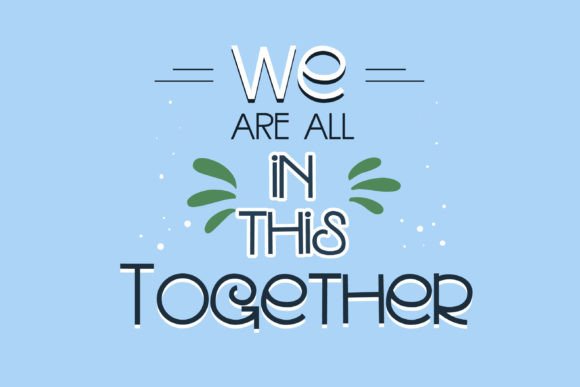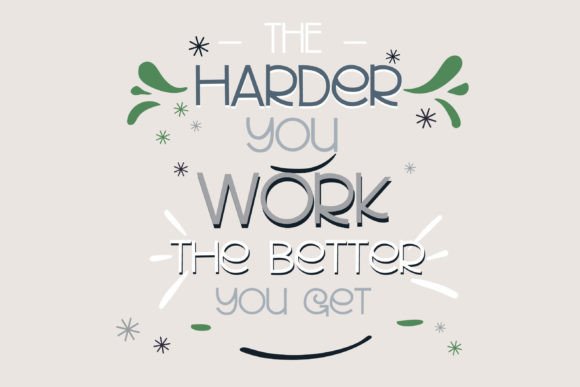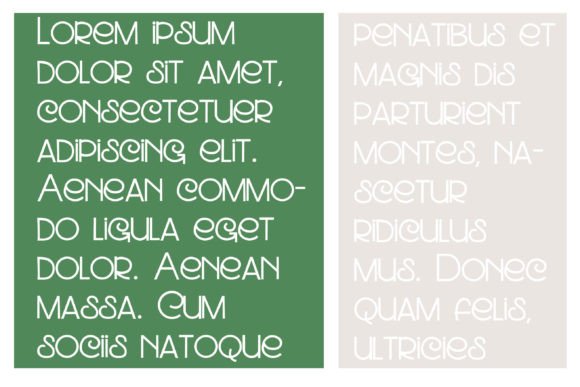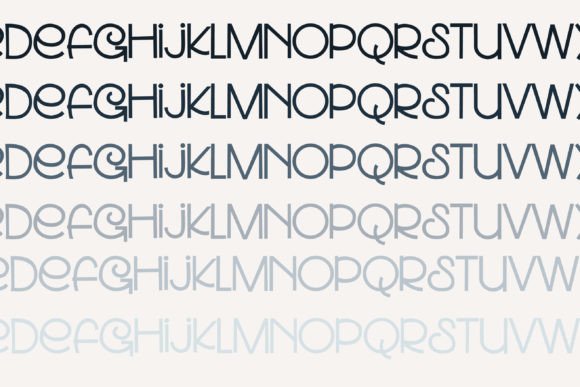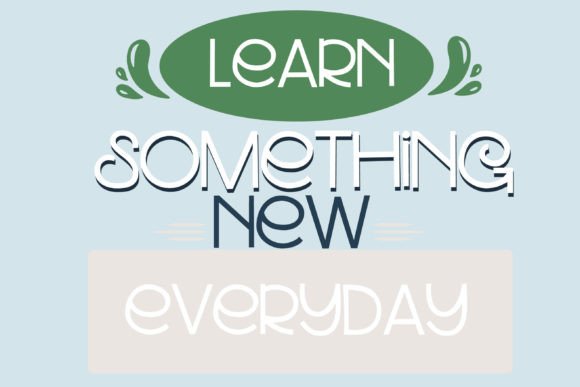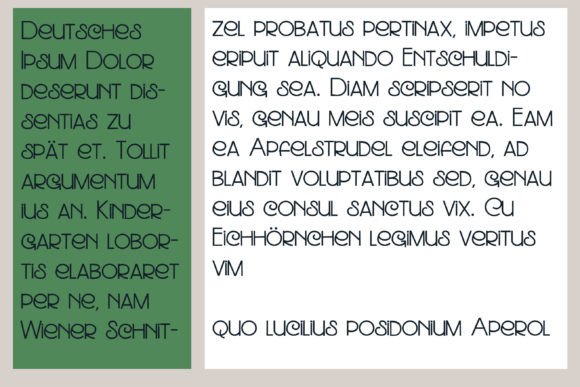
Introducing Fluorine Font: The Ultimate Sans Serif for Modern Designs
In the world of typography, fonts play a crucial role in conveying the tone and aesthetic of a design. For designers and crafters looking for a clean, minimalist, and versatile font, Fluorine Font is an excellent choice. This hand-crafted sans serif font boasts a unique characteristic – it’s squat with no descenders in the lowercase, making it perfect for a wide range of applications.
What Makes Fluorine Font Stand Out?
Fluorine Font’s minimalist and clean vibe is what sets it apart from other fonts. The absence of descenders in the lowercase letters gives it a distinctive, compact look that’s ideal for designs where space is limited. This font’s simplicity also makes it incredibly versatile, allowing it to seamlessly integrate into various design projects.
Endless Design Possibilities with Fluorine Font
The applications for Fluorine Font are endless, and its potential uses are limited only by your imagination. Here are some popular design ideas where Fluorine Font can shine:
- Book Covers: Add a modern touch to your book covers with Fluorine Font. Its clean lines and minimalist aesthetic make it perfect for fiction, non-fiction, and even children’s books.
- Magazines: Use Fluorine Font for headings, subheadings, or even body text to give your magazine a fresh, contemporary look.
- Social Media Posts: Elevate your social media game with Fluorine Font. Its compact design makes it ideal for short captions, quotes, or promotional text.
- Invitations: Create stylish and modern invitations for weddings, parties, or corporate events with Fluorine Font.
- Branding and Packaging: Fluorine Font can also be used for logos, product labels, and packaging design, giving your brand a clean and sophisticated look.
Why Designers and Crafters Love Fluorine Font
Designers and crafters appreciate fonts that are both aesthetically pleasing and functional. Fluorine Font checks all the boxes:
- Ease of Use: Fluorine Font is easy to read and works well in various digital and print formats.
- Customization: As a hand-crafted font, Fluorine Font can be customized to fit your specific design needs.
- Uniqueness: The font’s distinctive squat design with no descenders in the lowercase sets it apart from more traditional fonts.
Tips for Getting the Most Out of Fluorine Font
To maximize the impact of Fluorine Font in your designs, consider the following tips:
- Experiment with Sizes: Play with different font sizes to create visual hierarchy and emphasize key elements in your design.
- Combine with Other Fonts: Pair Fluorine Font with complementary fonts to add contrast and create visually appealing designs.
- Pay Attention to Color: Choose colors that complement the clean and minimalist aesthetic of Fluorine Font.
Fluorine Font is a versatile and stylish sans serif font that’s perfect for designers and crafters looking to add a modern touch to their designs. Its unique characteristics, ease of use, and endless design possibilities make it an excellent addition to any design toolkit. Whether you’re working on book covers, magazines, social media posts, or invitations, Fluorine Font is sure to elevate your designs and help you achieve your creative goals.